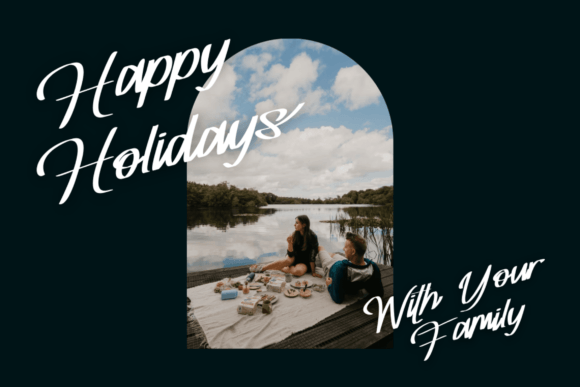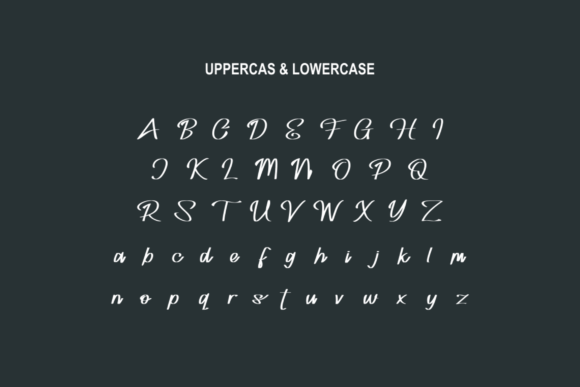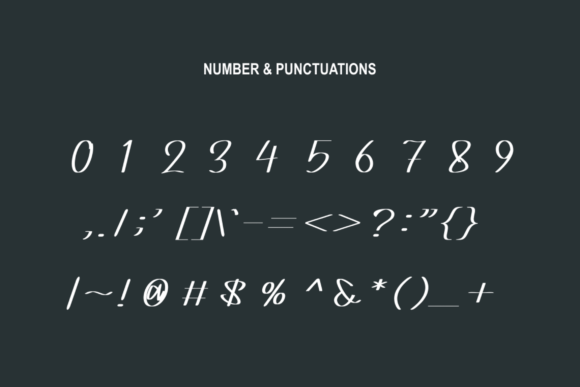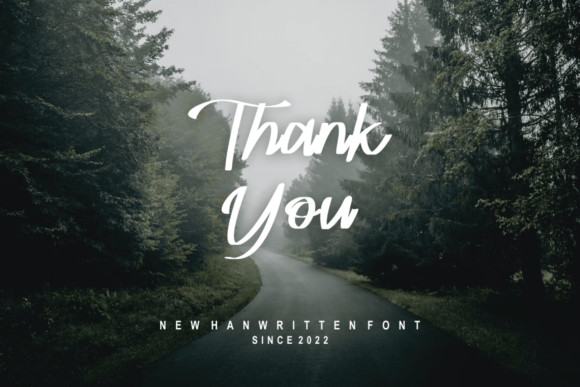
The Designer’s Delight: Darinyum Font
I’ll never forget the moment I stumbled upon the perfect font for a client’s branding project. I had been searching for what felt like an eternity, trying out font after font, but nothing seemed quite right. That was until I discovered Darinyum – a modern and stylish handwritten font that instantly elevated my design game. In this article, I’ll share my experience with Darinyum, its features, and how to make the most of it in your designs.
An Honest Review of Darinyum Font
Darinyum is a beautiful addition to any font library, and here’s what I love about it:
- ✨ Modern and stylish: Darinyum has a fresh and contemporary feel that’s perfect for a wide range of design projects.
- ✅ Versatile: Whether you’re working on a logo, brochure, or social media graphics, Darinyum adapts seamlessly to different contexts.
- 💫 Elegant and refined: The font’s smooth lines and flowing curves give it an air of sophistication that’s hard to find in handwritten fonts.
Of course, no font is perfect, and Darinyum has a few minor quirks:
- 🤔 Limited use in formal contexts: While Darinyum is elegant, it may not be the best fit for very formal or traditional designs, such as academic papers or corporate reports.
- ⚠️ Some glyphs may require adjustment: Depending on your design software, you may need to tweak certain glyphs to get the perfect look.
The Story Behind Darinyum Font
Darinyum was designed by a talented typographer who wanted to create a font that would bring a touch of modern elegance to any design project. Inspired by the flowing lines and curves of handwritten scripts, Darinyum was crafted to be versatile, elegant, and refined.
| Font Name | Darinyum Font |
| Author | kalingga.albert |
| What type of designs is Darinyum best suited for? | Darinyum is perfect for a wide range of design projects, including branding, logos, brochures, social media graphics, and more. |
| Does Darinyum support OpenType features? | Yes, Darinyum supports OpenType features, including stylistic alternates, glyphs, and more. |